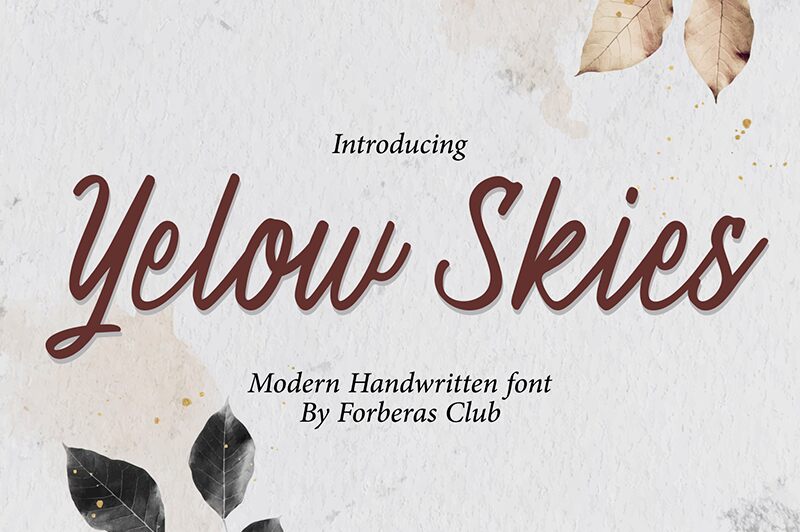
Yellow Skies Regular is a narrow, handwritten script font from Forberas Club. It's perfect for projects that require an elegant, yet casual look like invitations, logos and greeting cards.